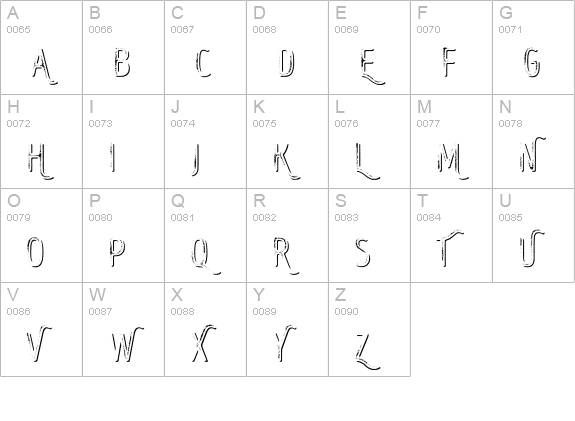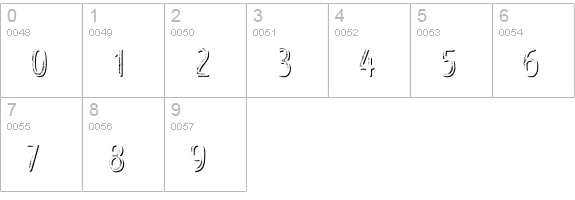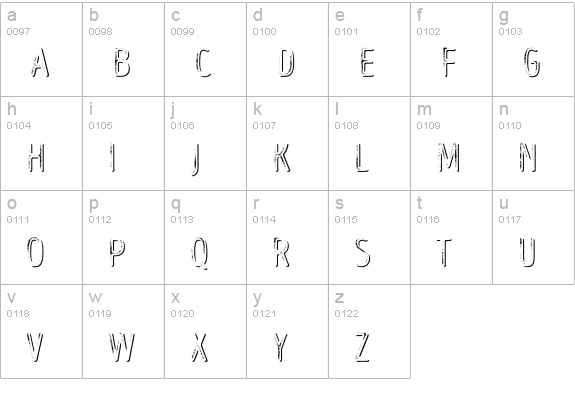
Intro Head R UC G Shade Font Details
The Intro Head R UC G Shade font is a stunning display typeface that exudes elegance and sophistication. With its unique uppercase characters and intricate shading details, this font is perfect for creating eye-catching headlines and titles. Its bold and commanding presence demands attention, making it ideal for branding, advertising, and editorial design projects. The best part? This exquisite font is available for free download at FontsMarket.com. Embrace the sleek and modern aesthetic of the Intro Head R UC G Shade font and elevate your designs to new heights. Whether you're designing for print or digital media, this font is sure to leave a lasting impression on your audience. Experience the power and versatility of this remarkable typeface today!